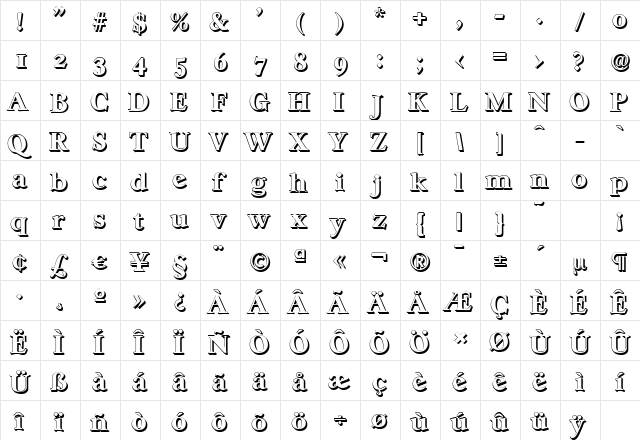
CasablancaShadow-Xbold Regular
Design Context for CasablancaShadow-Xbold Typeface
CasablancaShadow-Xbold brings ornamental detail and strong personality to headlines and identities, where visual impact matters more than quiet functionality. The heavy weight commands attention and anchors typographic hierarchies.
Font Pairing: Pair with a clean neutral sans-serif for body copy to let CasablancaShadow-Xbold's character lead without overwhelming the composition.
Pro Tip: Treat CasablancaShadow-Xbold as the centrepiece of your typographic hierarchy. One strong heading set in a decorative face can carry an entire layout.